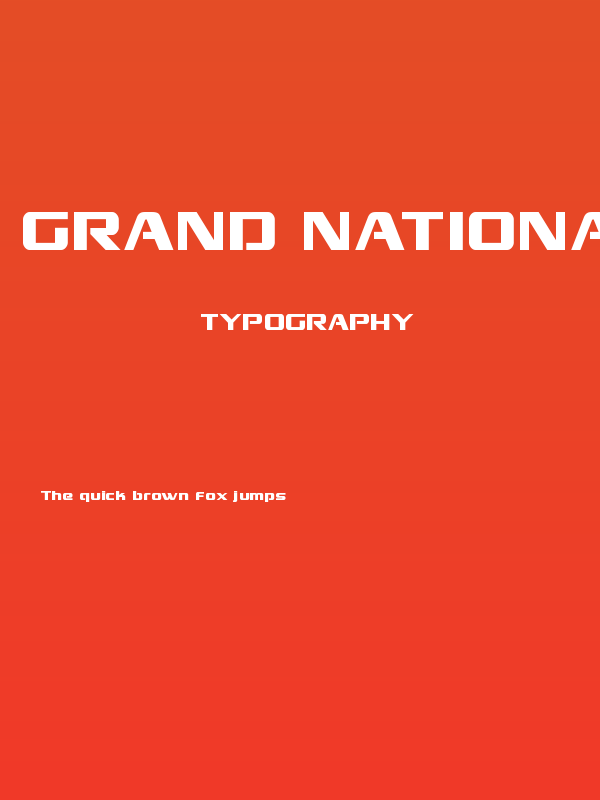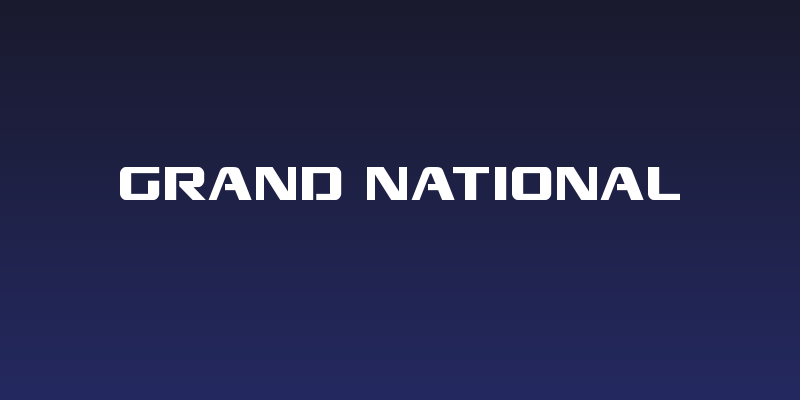
Grand National Font
Grand National Description
This font features a bold, geometric design with a strong presence. The characters are constructed with sharp angles and straight lines, giving it a modern and assertive look. The uppercase letters are particularly striking, with a uniform height and width that create a cohesive appearance. The lowercase letters maintain the same boldness, with a slightly more compact form. Numbers and special characters follow the same design principles, ensuring consistency across all elements. This font is ideal for projects that require a strong visual impact.